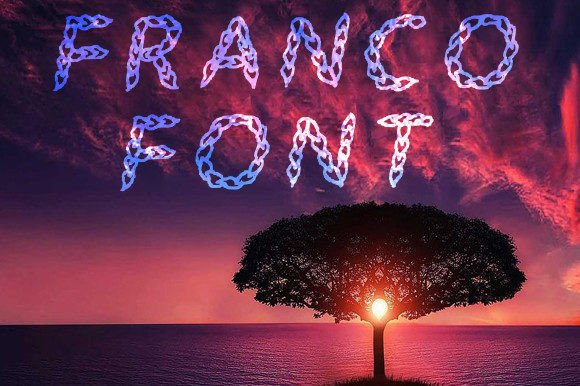
The Charm of Franco Font: A Friendly Decorative Typeface
I’ll never forget the moment I stumbled upon the perfect font for a whimsical children’s book project. I had been searching for what felt like an eternity, trying out font after font, but nothing seemed quite right. That was until I discovered Franco Font. With its bold characters and friendly feel, it instantly captured the essence of my project. If you’re a designer, crafter, or creative hobbyist looking for a font that exudes warmth and playfulness, you’re in the right place.
A Personal Review of Franco Font
So, what makes Franco Font so special? Let’s dive into the good stuff! 😊
- ✨ Unique Character: Franco Font boasts a distinctive style that’s both decorative and approachable.
- ✅ Ease of Use: This font is incredibly easy to read, making it perfect for large blocks of text or headings.
- 💕 Emotional Connection: The friendly feel of Franco Font helps create an instant emotional connection with your audience.
Of course, no font is perfect, and Franco Font has a few minor quirks:
- 🤔 Limited Formality: Due to its playful nature, Franco Font might not be the best fit for very formal or professional projects.
- ⚠️ Legibility at Small Sizes: While generally easy to read, Franco Font can become a bit tricky to decipher at very small font sizes.
The Story Behind Franco Font
Franco Font was designed with the intention of bringing warmth and friendliness to any project. Its creator aimed to craft a typeface that felt both approachable and decorative, perfect for materials aimed at children or for anyone looking to add a touch of whimsy to their designs.
| What makes Franco Font unique? | Franco Font stands out due to its bold characters and friendly feel, making it perfect for projects that require a playful yet approachable typeface. |
| Is Franco Font suitable for body text? | While Franco Font is easy to read, it’s primarily designed for headings and short paragraphs. For long body text, consider a more traditional typeface. |
| Does Franco Font support OpenType features? | Yes, Franco Font supports OpenType features, allowing you to access a variety of glyphs and stylistic alternates to enhance your typography. |